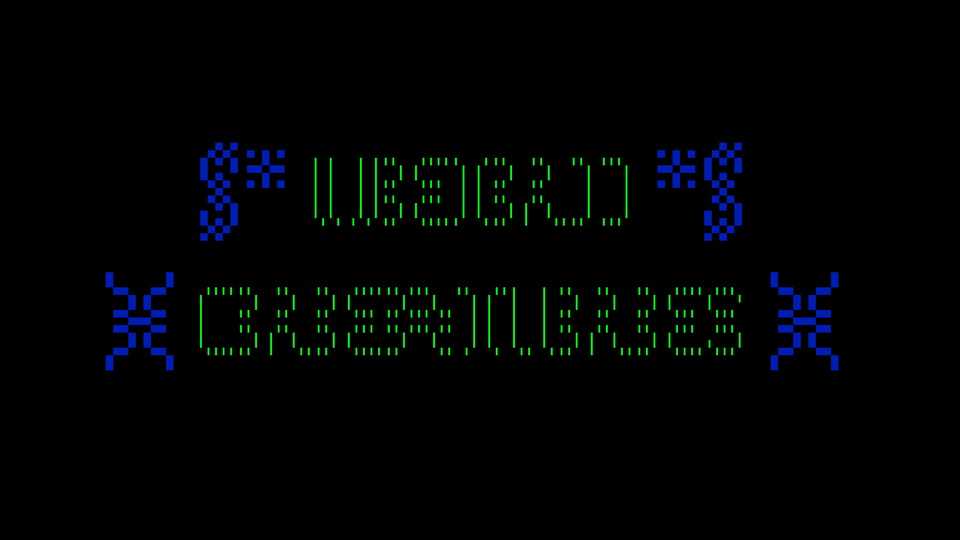
Download Lustra font, a pixel typeface that visualizes the transition between human world and the world of Lem’s works. The form of Lustra font was heavily inspired by mathematical and logical, yet still organic planetary forms from one of his most famous novels „Solaris”.